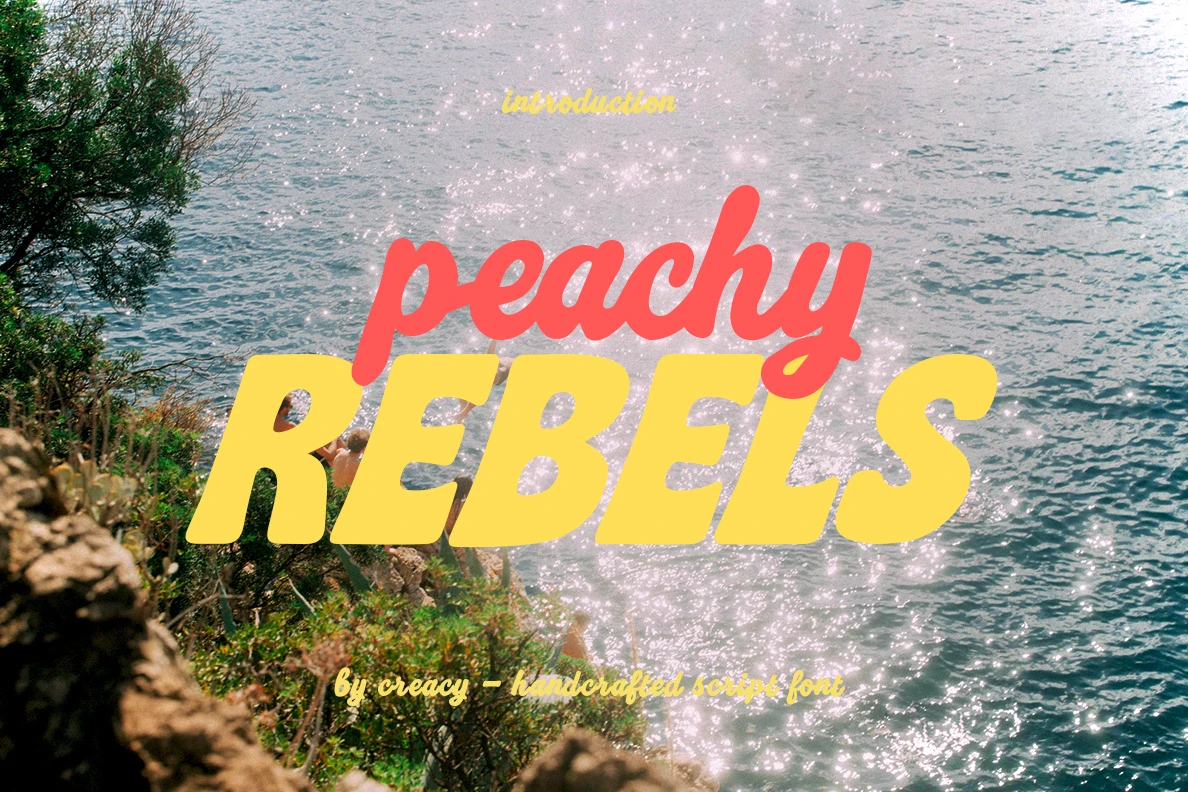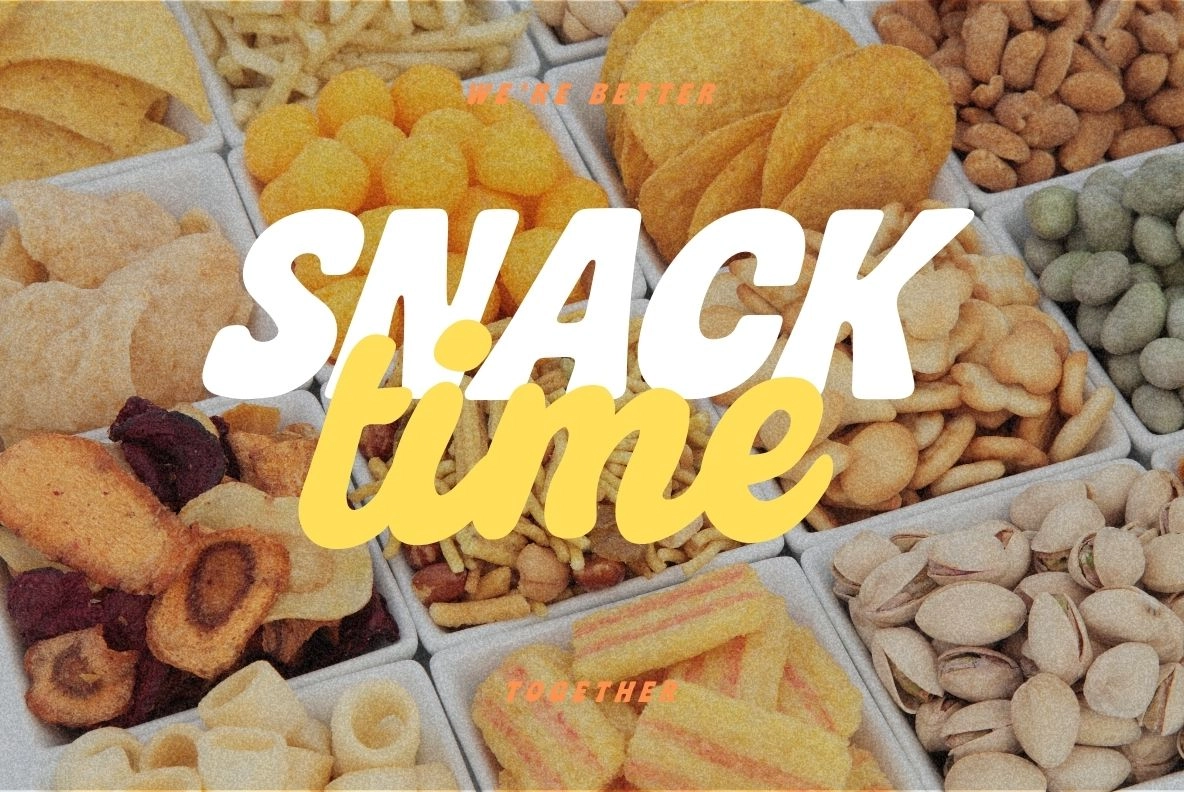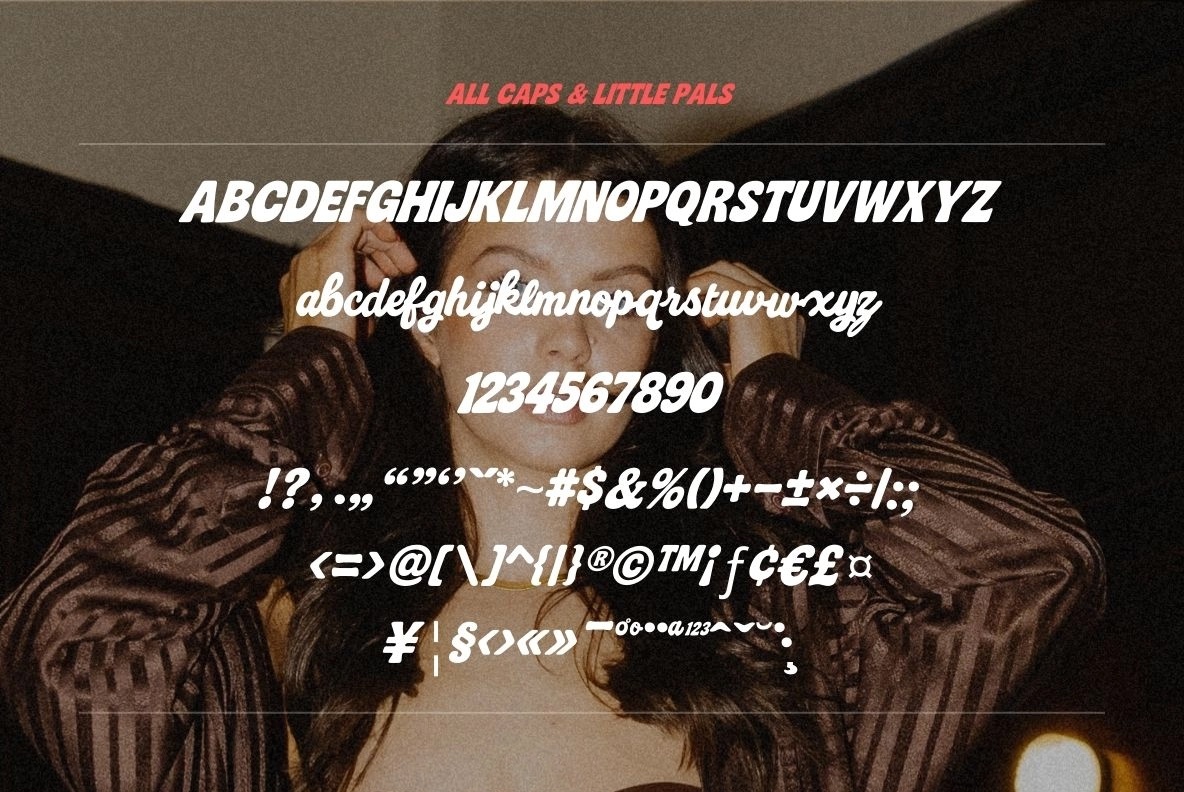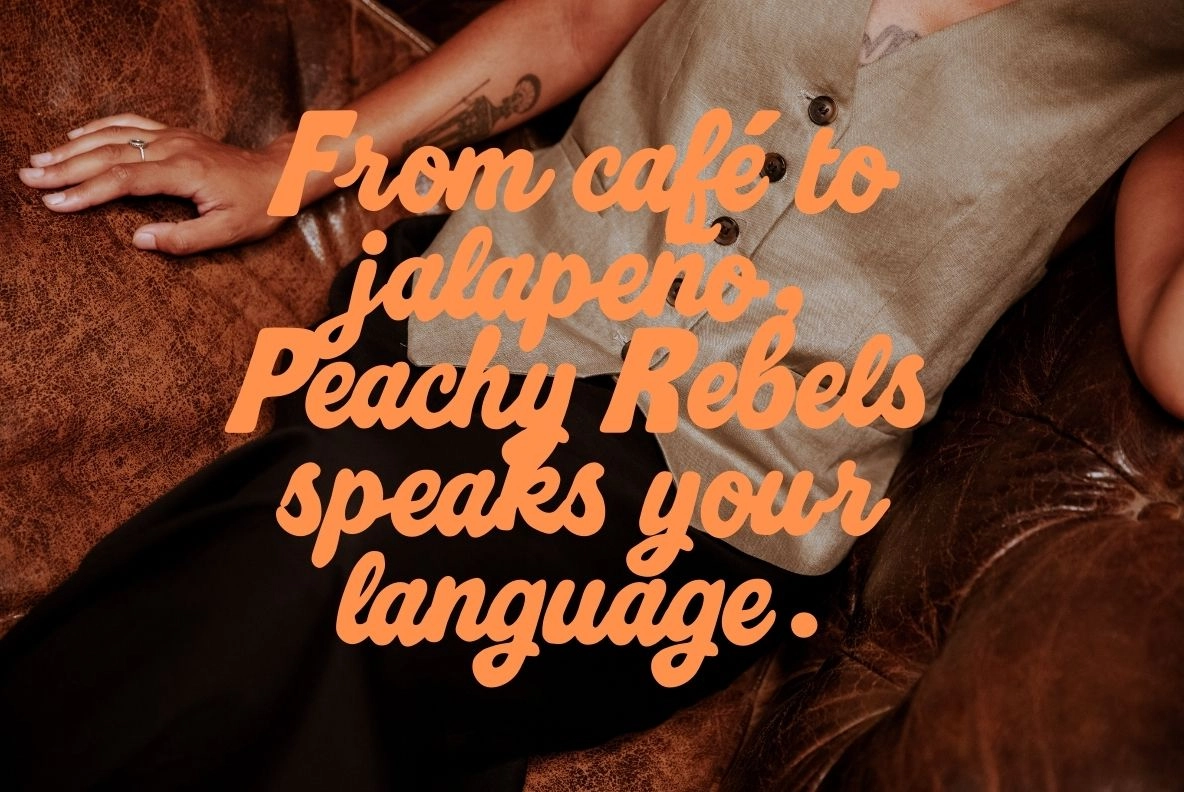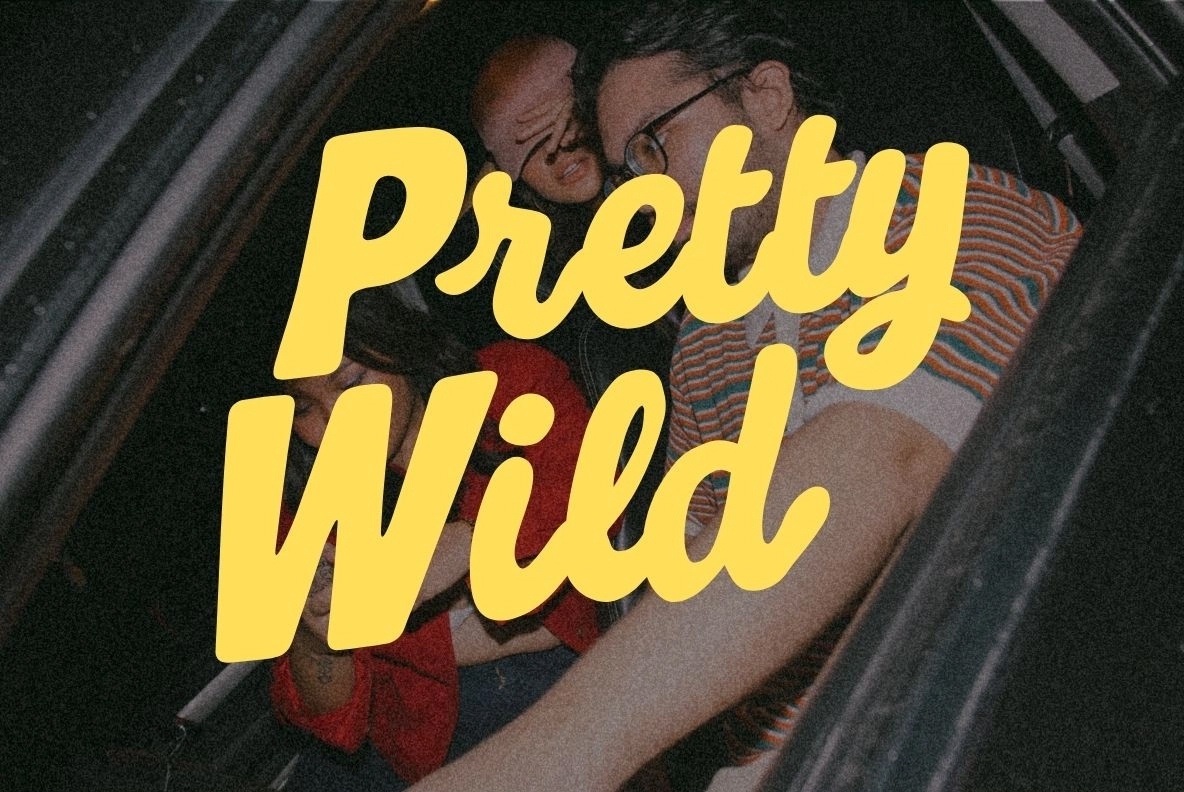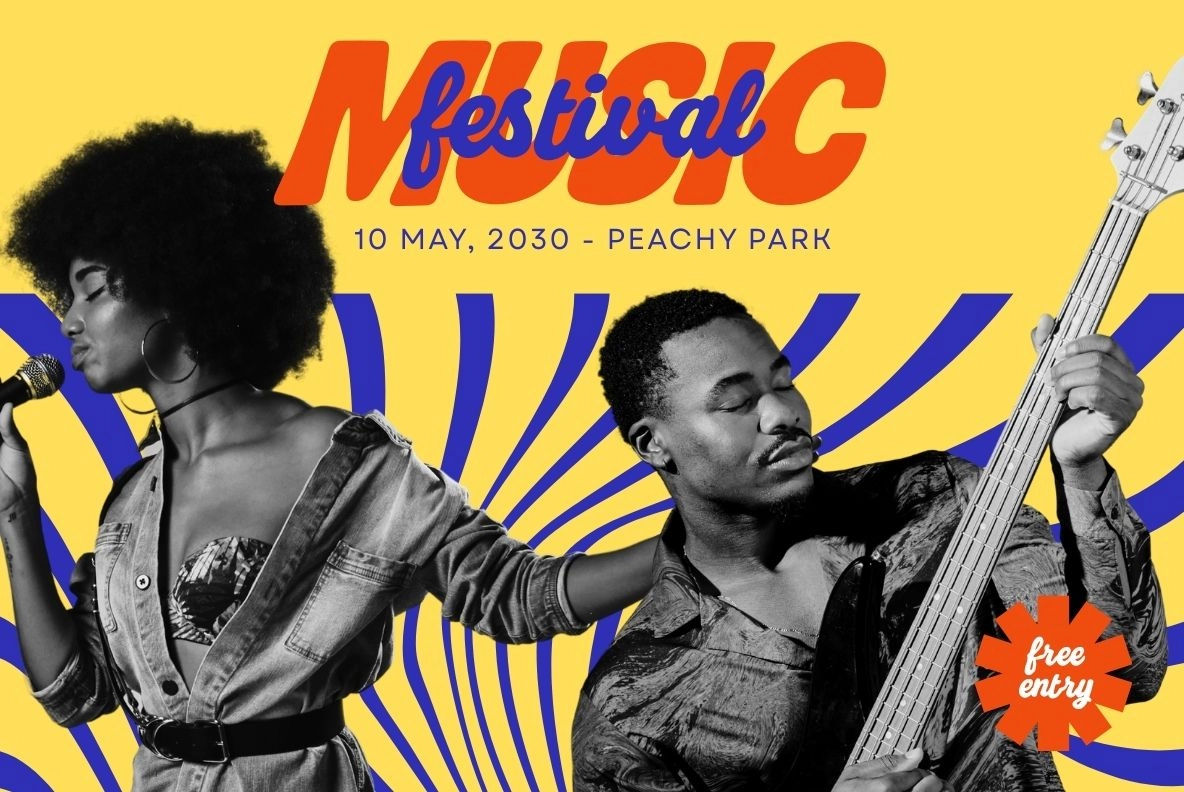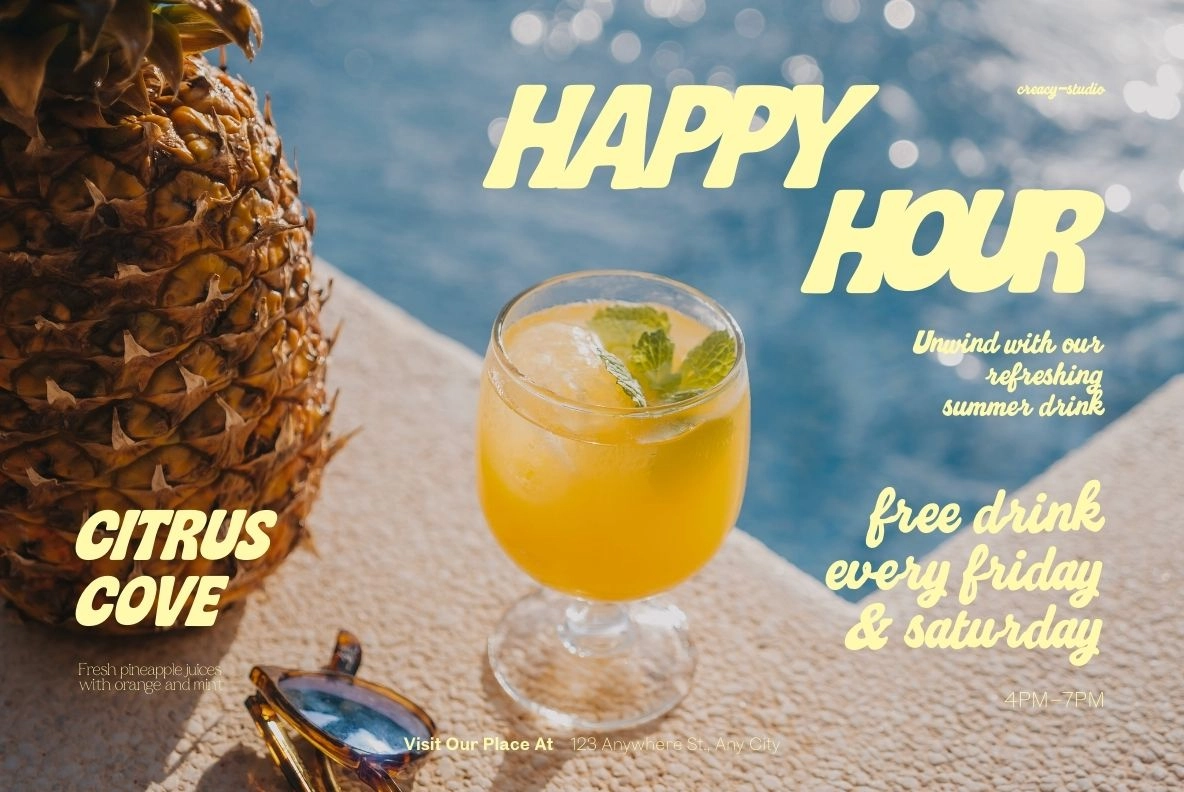
Peachy Rebels – Playful Font
Peachy Rebels
Bring bold personality and cheerful energy to your designs with Peachy Rebels, a playful display font that celebrates fun, freedom, and creativity.
With chunky shapes, soft edges, and a quirky hand-drawn charm, Peachy Rebels is perfect for designers who love to break the rules — in the most delightful way.
It’s the ideal choice for playful logos, colorful packaging, children’s projects, or any design that needs a burst of retro joy and bold character.
- Uppercase & lowercase
Perfect For
- Kids’ branding & illustrations
- Fun packaging & posters
- Retro-inspired design
- Playful logos & quotes
- Social media graphics
Let your creativity go wild with Peachy Rebels — where bold meets fun in every curve and letter.